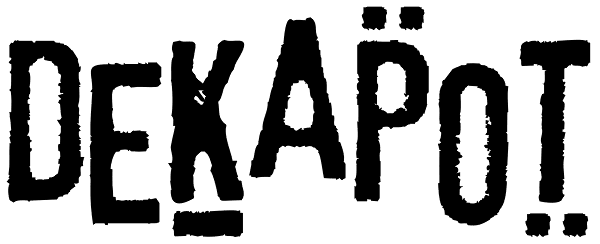
Dekapot
A grunge-oriented secret code font, Dekapot Deluxxe has mysterious underlines and accent marks that pop up at seemingly random locations as you type. But these morse-code-like dots and dashes are not random at all, they're simply attached to the...